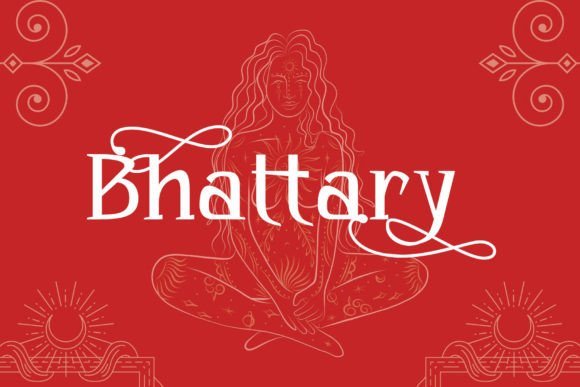
The Perfect Typography for Your Next Creative Project
Have you ever stared at a blank canvas, waiting for the perfect font to come along and bring your design to life? We’ve all been there, haven’t we? The struggle to find the right typography can be daunting, but fear not, dear designers! Today, we’re excited to introduce you to the Bhattary Font, a stunning serif font that’s sure to elevate your next project.
Bhattary Font is more than just a font – it’s a statement piece. With its elegant, modern look, it’s perfect for logos, branding, invitations, stationery, and so much more. Whether you’re designing a wedding invitation or a social media post, this font is sure to make a lasting impression.
Bhattary Font Key Features
- Font Family: Bhattary Font is a custom-designed font, making it unique and exclusive.
- Unique Characteristics: Features a unique blend of traditional and modern elements, with intricate details and ornaments that set it apart from other fonts.
- Font Style: Available in regular and bold styles, with the option to customize and create additional styles as needed.
Bhattary Font Review
I had the chance to work with the Bhattary Font, and I must say it’s a unique addition to any design project. ✨ One of the things that caught my attention was its elegant and refined feel, making it perfect for luxury or high-end brands. The font’s lines are smooth, and the letterforms are well-balanced, resulting in a sophisticated visual experience.
Another strength of the Bhattary Font is its versatility. ✨ It comes in various weights and styles, allowing designers to experiment with different moods and atmospheres. Whether you’re going for a classic, elegant look or a modern, edgy vibe, this font can adapt to your needs.
- ⚠️ The Bhattary Font may not be the best choice for body text, as it can be quite decorative and may not provide the best readability.
- ⚠️ Some users might find the font’s lines a bit too thin, which could make it difficult to read on certain screens or devices.
- ⚠️ The font’s limited character set might cause issues for designers who need to support non-English languages.
Overall, I think the Bhattary Font is a solid addition to any designer’s toolkit. While it may have some limitations, its unique charm and versatility make it a great choice for projects where you need to make a statement. With some careful planning and consideration, this font can help you create stunning designs that truly stand out.
Tips for Getting the Most Out of Bhattary Font
Use Bhattary Font for creative and artistic designs, such as infographics, posters, and social media graphics.
Combine Bhattary Font with other fonts to create a unique and visually appealing design.
Experiment with different font sizes, colors, and styles to achieve the desired effect.
Common Use Cases for Bhattary Font
Bhattary Font is commonly used for:
Infographics and data visualizations
Posters and flyers
Social media graphics and advertisements
Alternatives to Bhattary Font for Designers
Playfair Display is a luxurious and elegant serif font. It is ideal for use in high-end branding, luxury products, and special occasions. It has a similar vintage feel to Bhattary Font but with a more refined and sophisticated look.
Playfair Display is more ornate and detailed compared to Bhattary Font, making it a better choice for formal and high-end designs. However, it may not be as versatile as Bhattary Font in terms of pairing with other fonts.
Pacifico is a beautiful and elegant script font with a relaxed and casual feel. It is perfect for use in branding, packaging, and advertising for companies that want to convey a sense of friendliness and approachability.